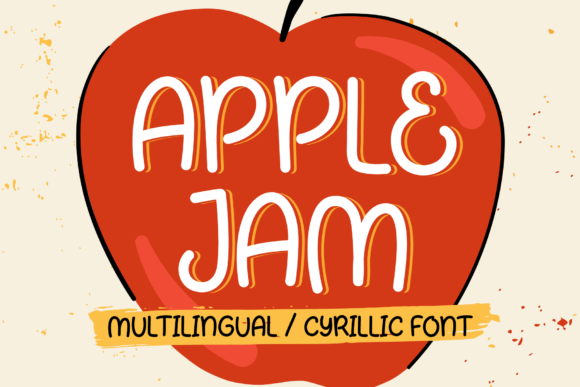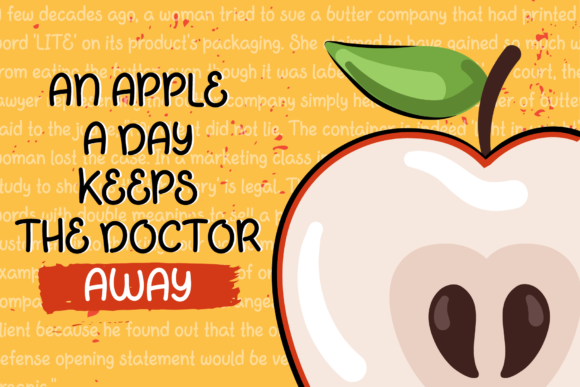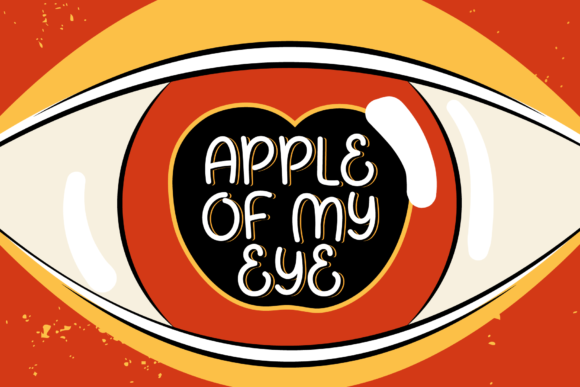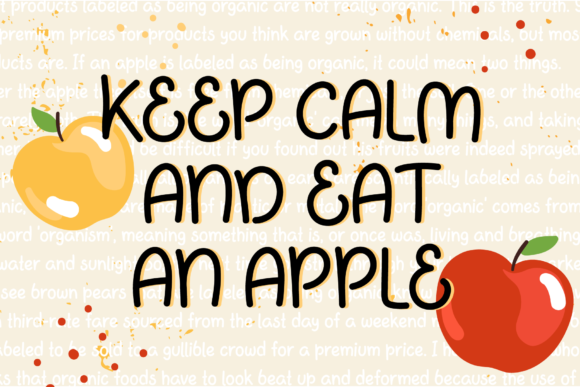
About Apple Jam Font
Introducing “Apple Jam,” a sweet and friendly handwritten font that will charm its way into your heart. Whether you’re seeking fonts for Instagram posts or elegant calligraphy scripts for your DIY projects, this font is the perfect choice to transform any creative idea into a true work of art!
The delightful and inviting nature of “Apple Jam” makes it an ideal companion for social media graphics. From eye-catching Instagram stories to engaging posts, this font adds a touch of warmth and authenticity that resonates with your audience. Let it enhance your messages and captivate your followers, turning your content into a delightful experience.
For your DIY projects, “Apple Jam” serves as the perfect calligraphy script. Its sweet and friendly strokes add a personal and handcrafted touch to your creations, whether it’s custom cards, gift tags, or beautiful art prints. Embrace the artistic flair of this font and watch as it elevates your crafts to a whole new level of charm and elegance.
The versatility of “Apple Jam” knows no bounds. Its legible and well-crafted characters ensure that your text is easy to read and pleasing to the eye. Whether you’re working on print materials or digital designs, this font effortlessly adapts to various contexts, making it a reliable choice for all your creative endeavors.
As you explore the endless possibilities with “Apple Jam,” you’ll find that it becomes your go-to font for adding a touch of sweetness to your projects. It will infuse your designs with a sense of joy and friendliness, leaving a positive and lasting impression on anyone who encounters them.
So, embrace the sweetness of “Apple Jam” and let it be the heartwarming ingredient in your creative concoctions. Whether you’re a seasoned designer or a creative enthusiast, this font empowers you to express yourself with genuine warmth and affection. Let “Apple Jam” bring a smile to your audience’s face and turn your creative ideas into delightful works of art that they’ll cherish and remember.